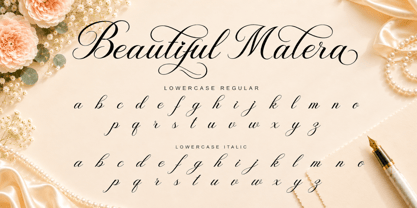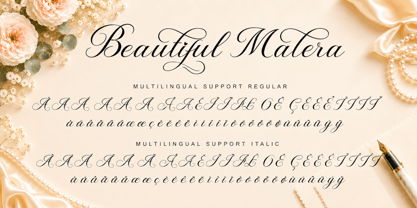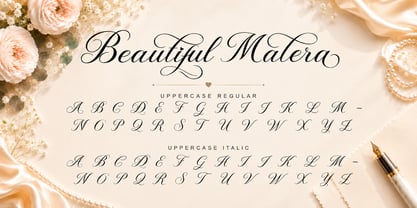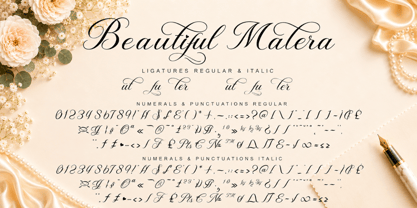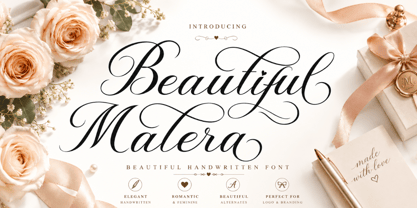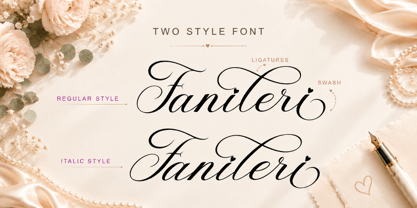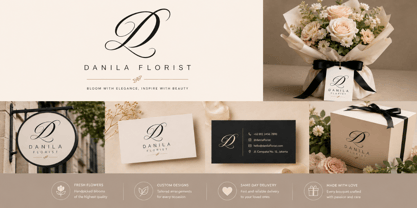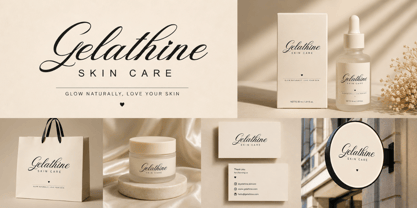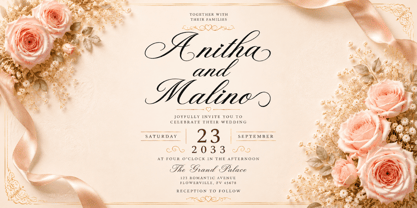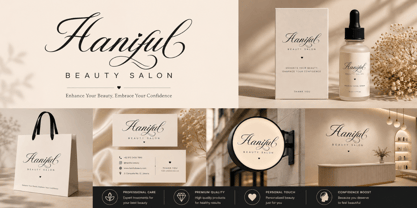
Beautiful Malera
by Yoga Letter
The Beautiful Malera Font Family was designed by Isroni Yoga Prasetya and published by Yoga Letter. Beautiful Malera contains 2 styles and family package options. More about this family
Beautiful Malera is an elegant handwritten font featuring graceful curves, a romantic touch, and timeless sophistication. Perfect for wedding invitations, branding, logos, social media designs, and luxury packaging, this font adds a touch of charm, femininity, and artistic beauty to any project. Its stylish alternates and refined letterforms create a sophisticated and professional look that easily stands out.